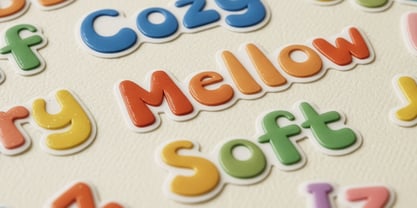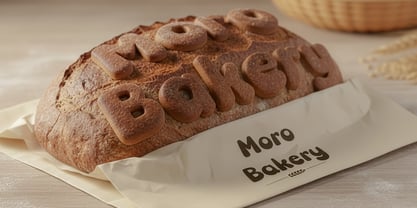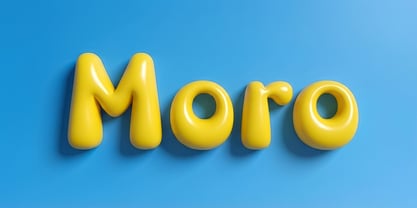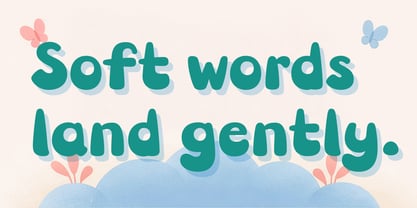
Moro
von Ask Foundry
Die Schriftfamilie Moro wurde von Seung Hyub Lee entworfen und von Ask Foundry veröffentlicht. Moro enthält 1 Stile.
Playful shapes land soft, steady, and true. About the Typeface Moro is a display typeface built on rounded forms and a relaxed rhythm. It carries the warmth and freedom of hand-drawn lettering while maintaining a stable and balanced structure. Each letter feels expressive on its own, yet settles calmly when combined into words and sentences. Rather than focusing solely on cuteness, Moro is designed to balance visual charm and readability. ⸻What Makes Moro Special • Playful without being childish • Rounded forms with a grounded structure • Friendly tone with visual confidence • Strong presence in branding and packaging Moro doesn’t shout for attention. It gently draws the eye—and stays in memory. ⸻Design Use Cases Moro works especially well in: • Brand logos and wordmarks • Packaging titles and product names • Stickers, merchandise, and lettering designs • Posters, key visuals, and headlines • Lifestyle, food, kids, and character-driven brands Its strengths shine most in short phrases and bold visual statements. ⸻Suggested Typeface Pairings Moro pairs beautifully with clean, neutral sans-serif typefaces. • Inter, Pretendard, Noto Sans • Humanist Sans styles • Simple Grotesque families Using Moro for headlines and a restrained sans-serif for body text creates a clear and balanced hierarchy. ⸻Style & Technical Details • Style: Rounded Display / Playful / Friendly • Character set: (1) Basic Latin uppercase & lowercase (2) Numerals (3) Standard punctuation • Features: (1) Consistent stroke weight (2) Soft, rounded terminals (3) Optimized spacing for legibility Moro is optimized for display use and performs best at medium to large sizes. ⸻Design Concept & Background Moro began with the idea of a “soft landing.” Letters that feel lively, yet rest gently on the page. The goal was to preserve the warmth of hand-drawn forms while ensuring consistency and usability in commercial design. Through repeated refinement of structure and rhythm, Moro became a typeface that feels emotional yet dependable. Moro is not a revival. It is a contemporary display typeface designed for modern, expressive branding.
Designer: Seung Hyub Lee
Herausgeber: Ask Foundry
Foundry: Ask Foundry